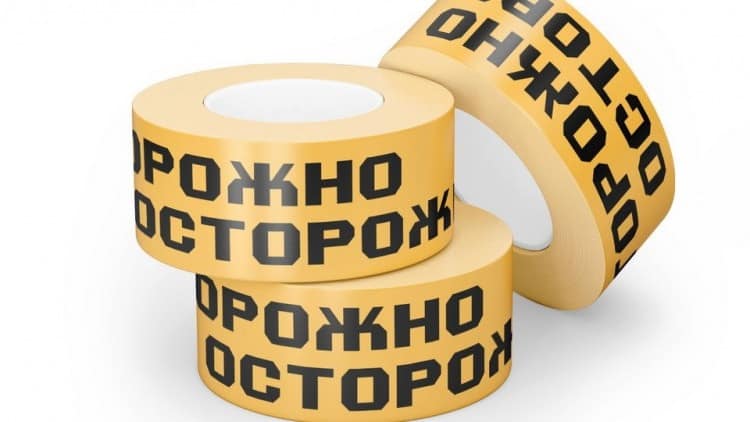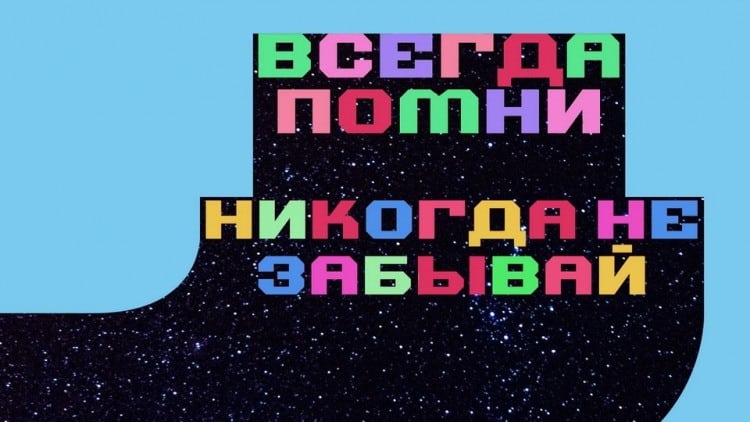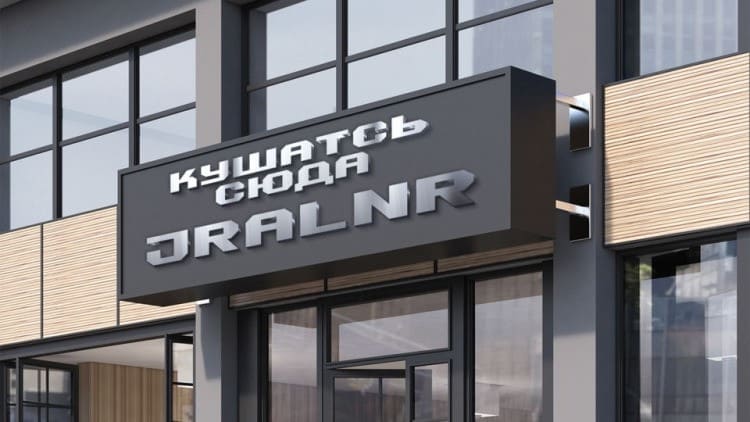
Dacik Push Display Font have strong and bold charasteristics that will make your design more standout from the others. Made from font designer named Maxim Raikov. Strong lines and right angles. Stern, formidable, but alluring, meet – DacikPush. This font is a sans serif with multilingual support including English and Russian.